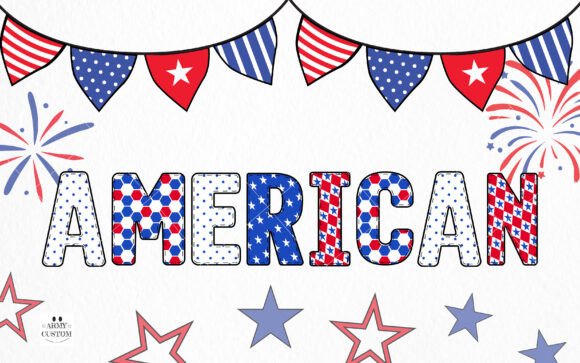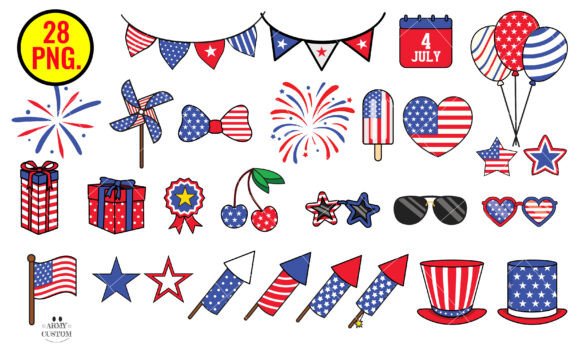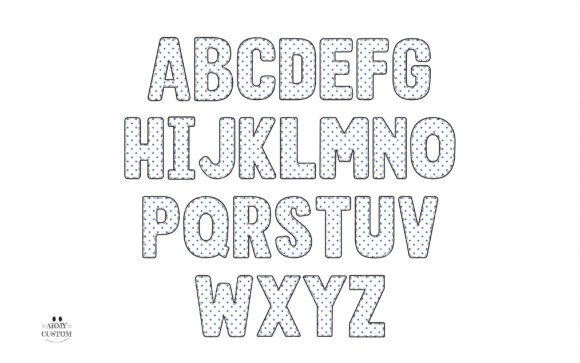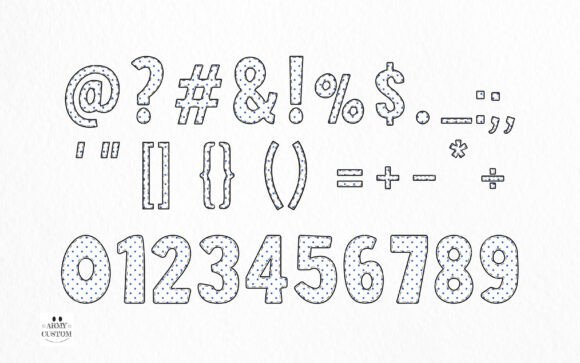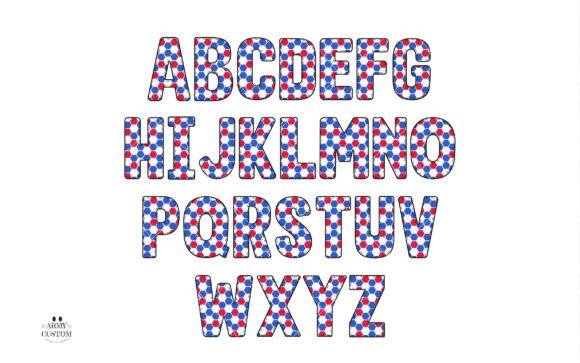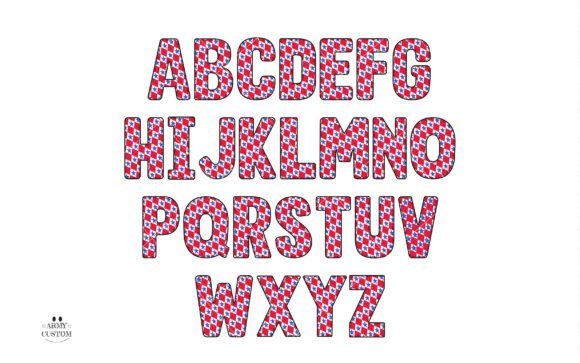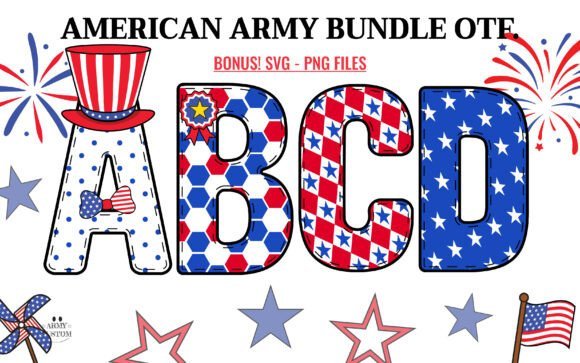
Get Ready to Celebrate with the Perfect Font
As you sit down to plan your patriotic projects, you can’t help but feel a rush of creative excitement. The smell of fireworks, the sound of marching bands, and the sight of the American flag waving high – it’s the perfect time to get crafty and show your love for the good ol’ US of A. That’s where the American 4th of July Bundle Font comes in – a beautifully designed font that captures the essence of American patriotism in every curve and line.
This unique font is not just a tool for designers, but a way to pay tribute to the land of the free. With its charm and spirit of American aesthetics, it’s the perfect addition to any creative project. Whether you’re making party invitations, designing decorations, or crafting a patriotic-themed gift, the American 4th of July Bundle Font is sure to bring a touch of unmatched patriotism to your work.
Key Features of “American 4th of July Bundle Font”
- Unique Characteristics: Features 4th of July-themed icons and ornaments, including fireworks, flags, and patriotic graphics, adding a festive touch to designs
- Font Styles: Includes bold, italic, and regular font styles for versatility and flexibility in design
Designer Review: American 4th of July Bundle Font
Overall, I think this font bundle is a great addition to any designer’s collection. It’s perfect for creating patriotic and celebratory designs, especially around Independence Day.
- Highly customizable: The bundle includes various font styles, weights, and sizes, making it easy to create unique designs.
- Easy to read: The fonts are clean and legible, even at smaller sizes, which is essential for digital and print designs.
- Great for patriotic designs: The font’s theme is perfect for creating 4th of July-themed designs, such as invitations, posters, and social media graphics.
- Limited versatility: While the font is great for patriotic designs, it may not be as versatile for other types of projects.
- Lack of international character support: The font may not support non-English characters, which could be a limitation for designers working with international clients.
Overall, I’m impressed with the American 4th of July Bundle Font. It’s a great addition to any designer’s collection, especially for patriotic designs. However, its limitations may make it less versatile for other types of projects.
The American 4th of July Bundle Font is ideal for:
- Patriotic designs and graphics.
- Firework and explosion-themed designs.
- Summer-themed designs and templates.